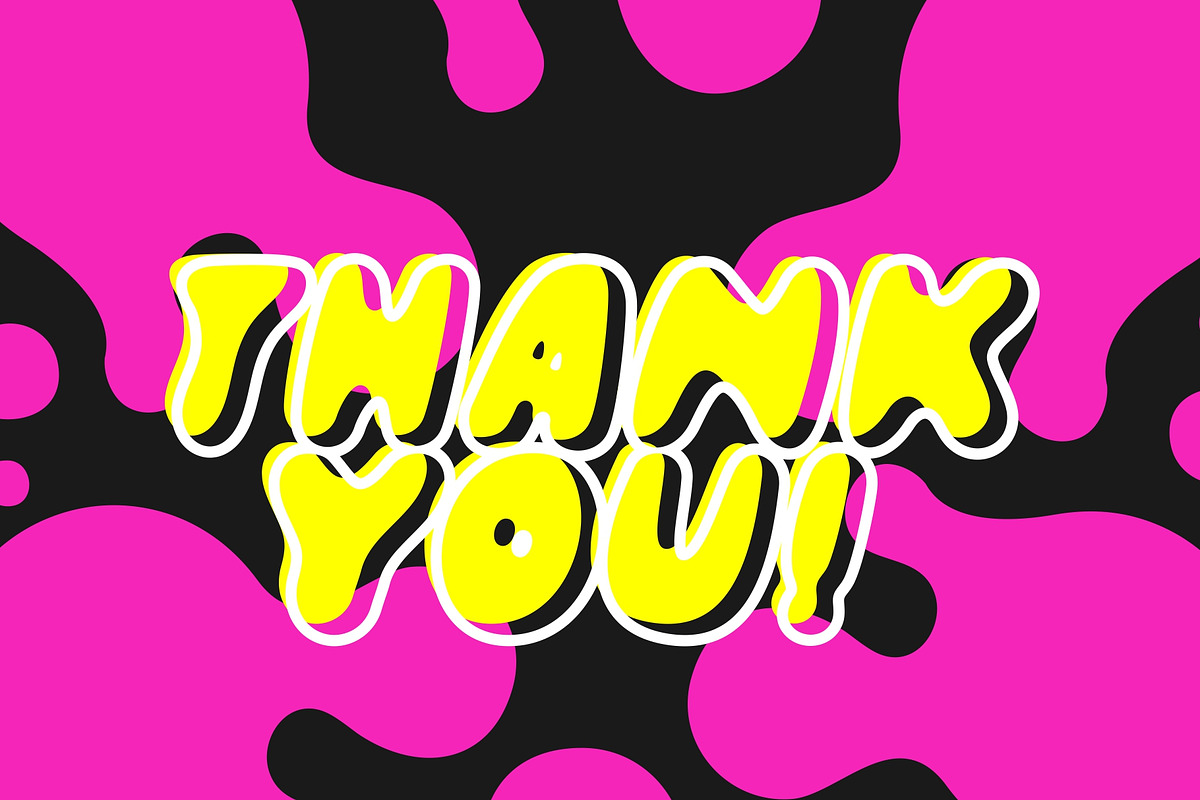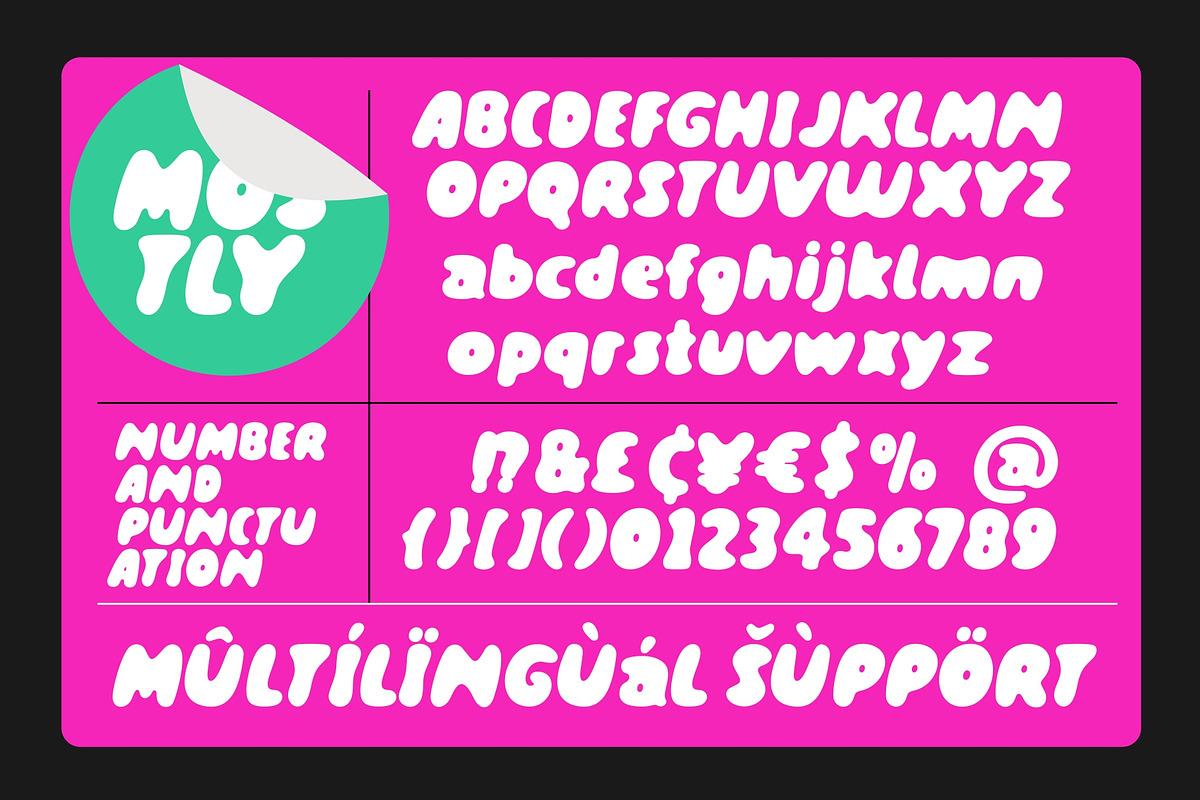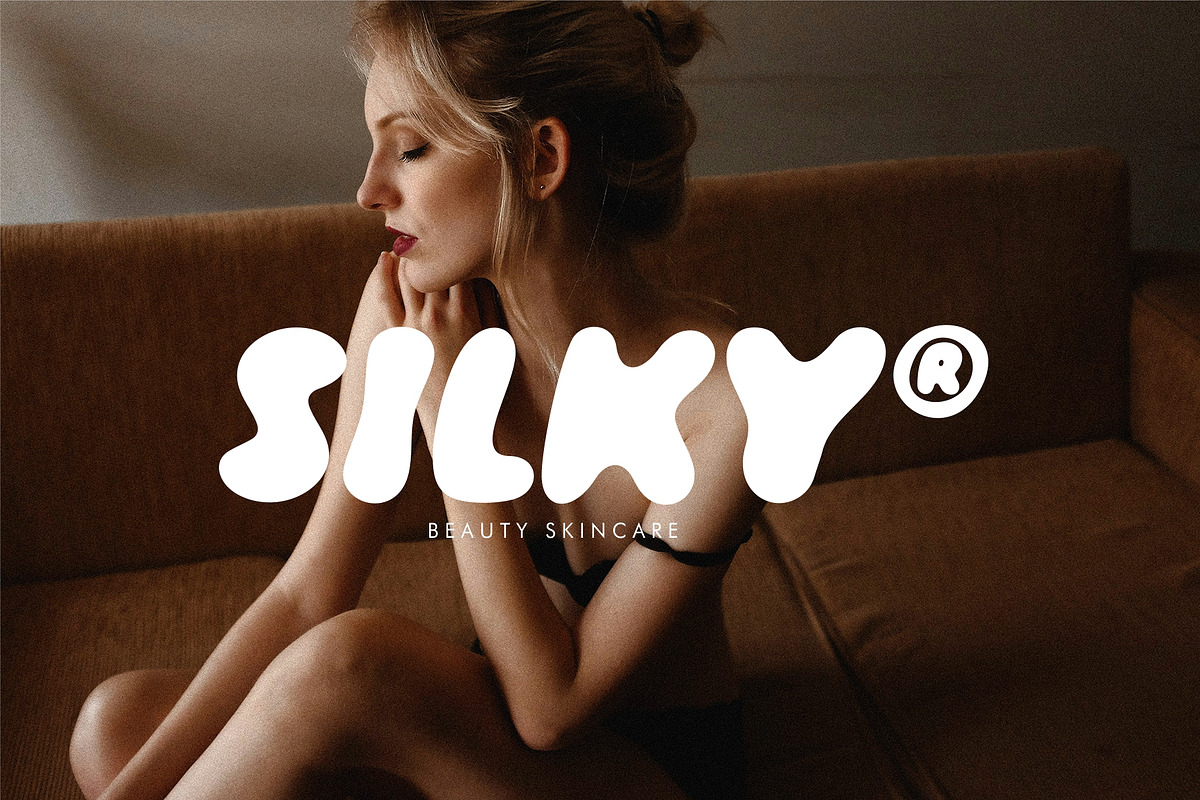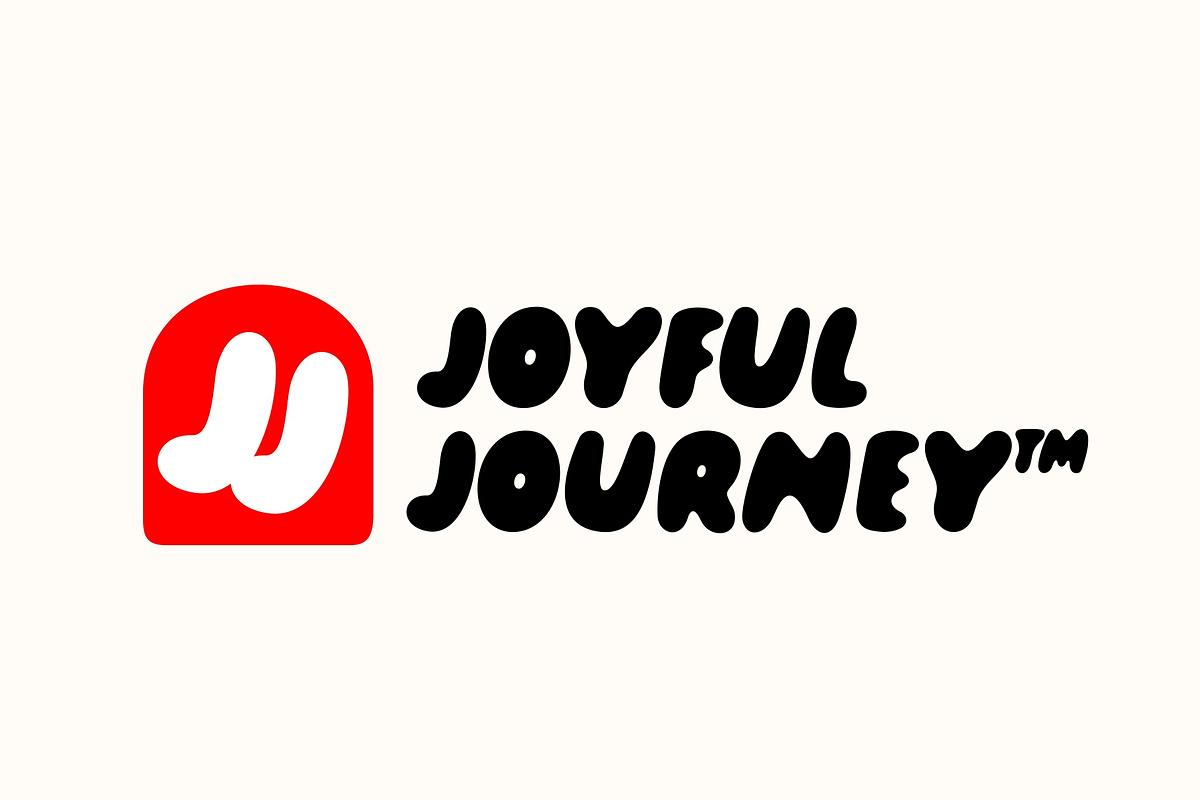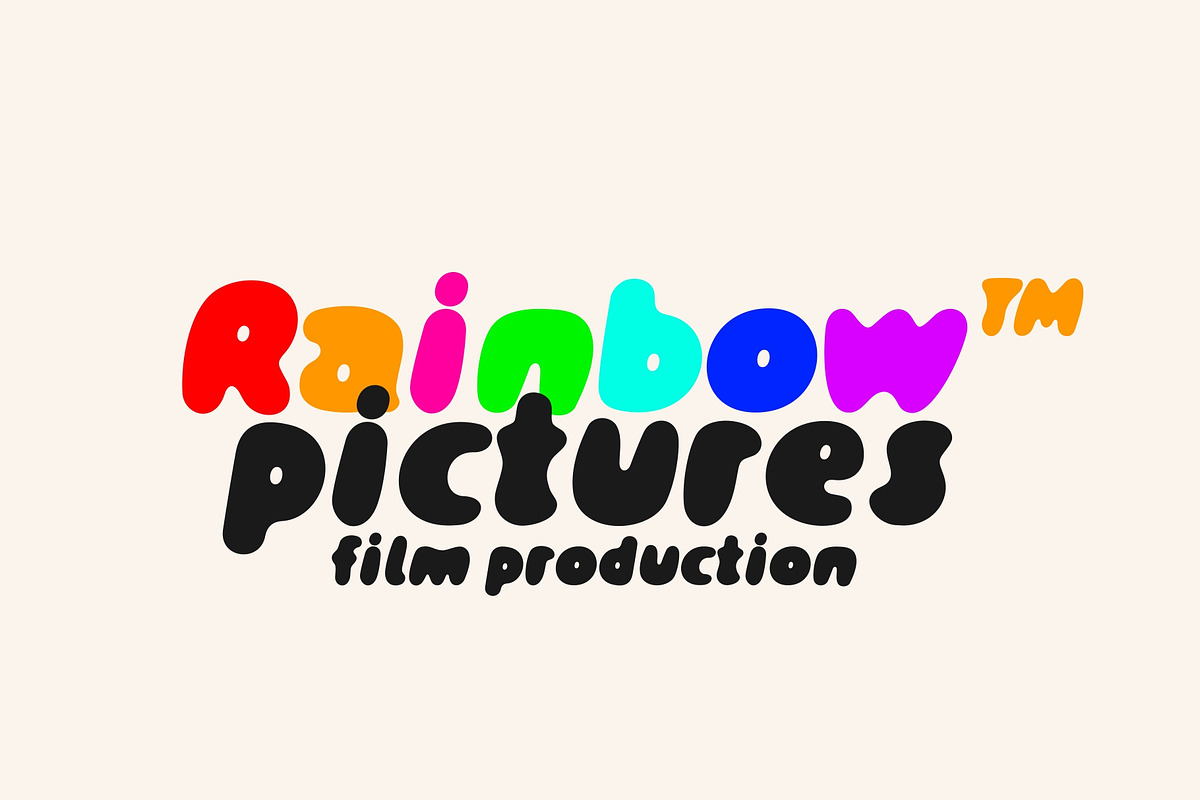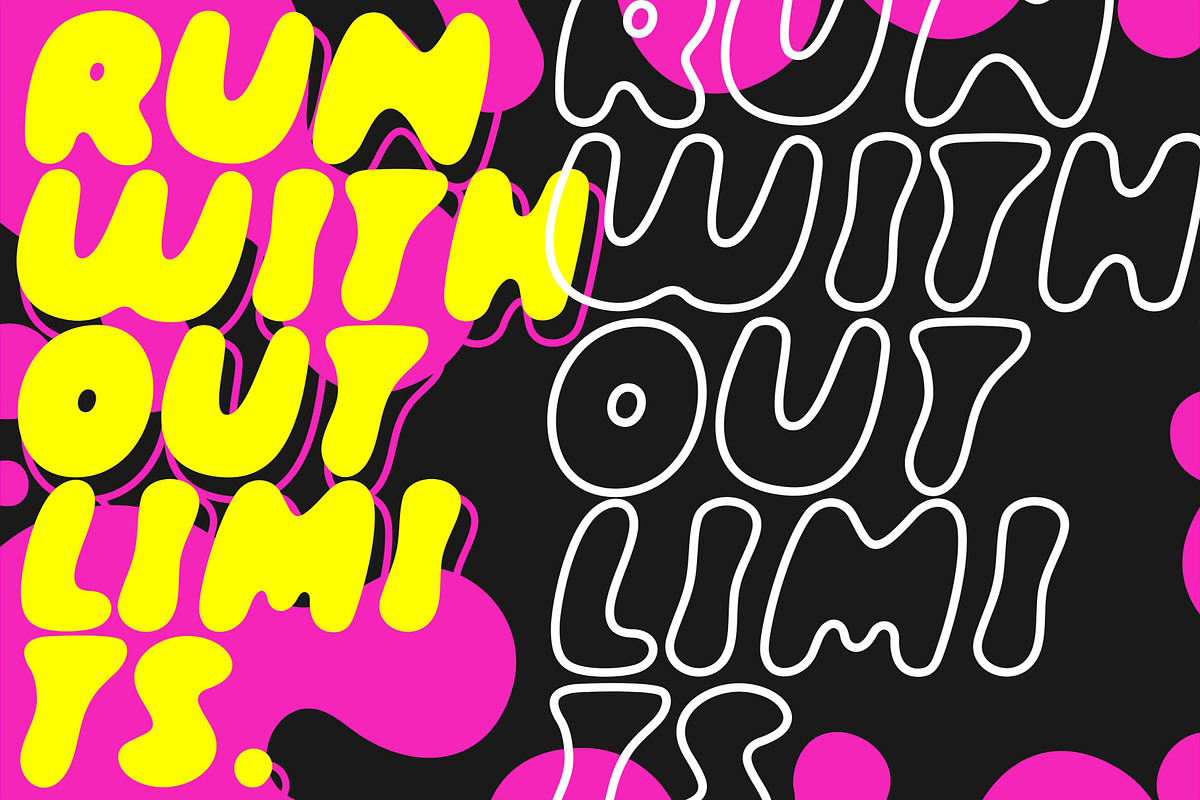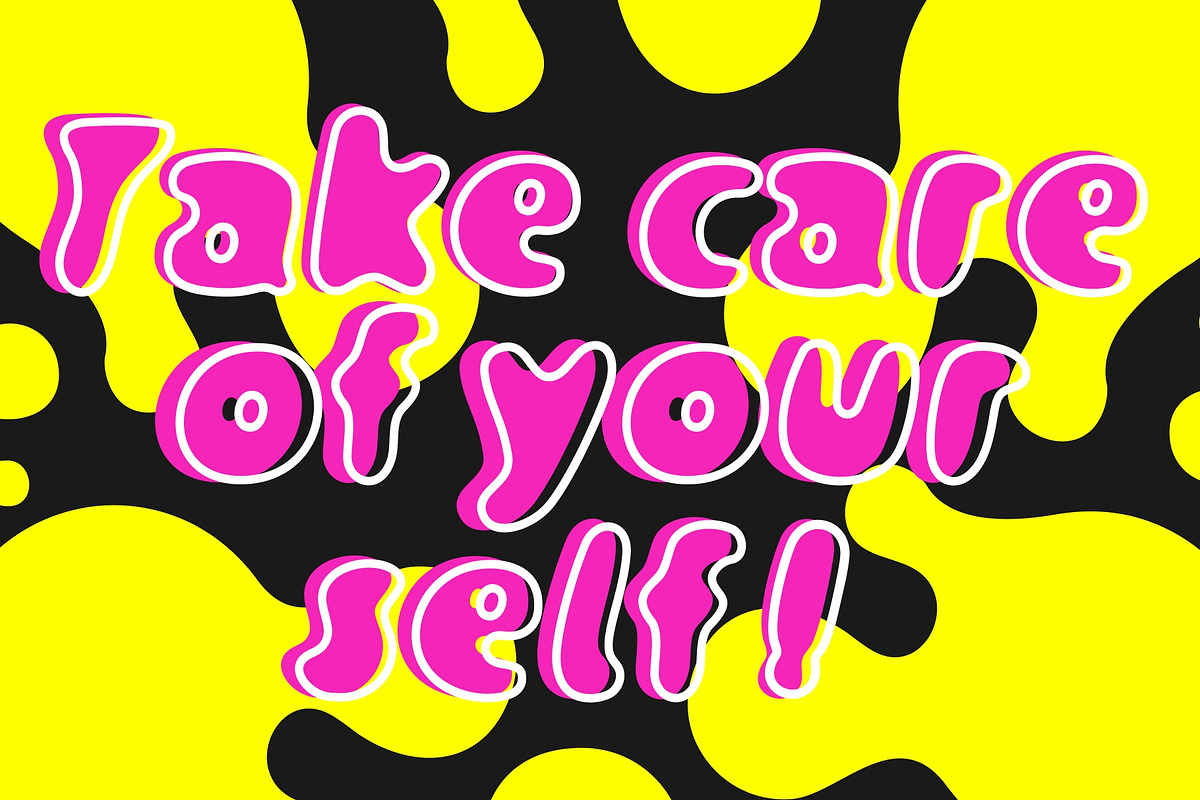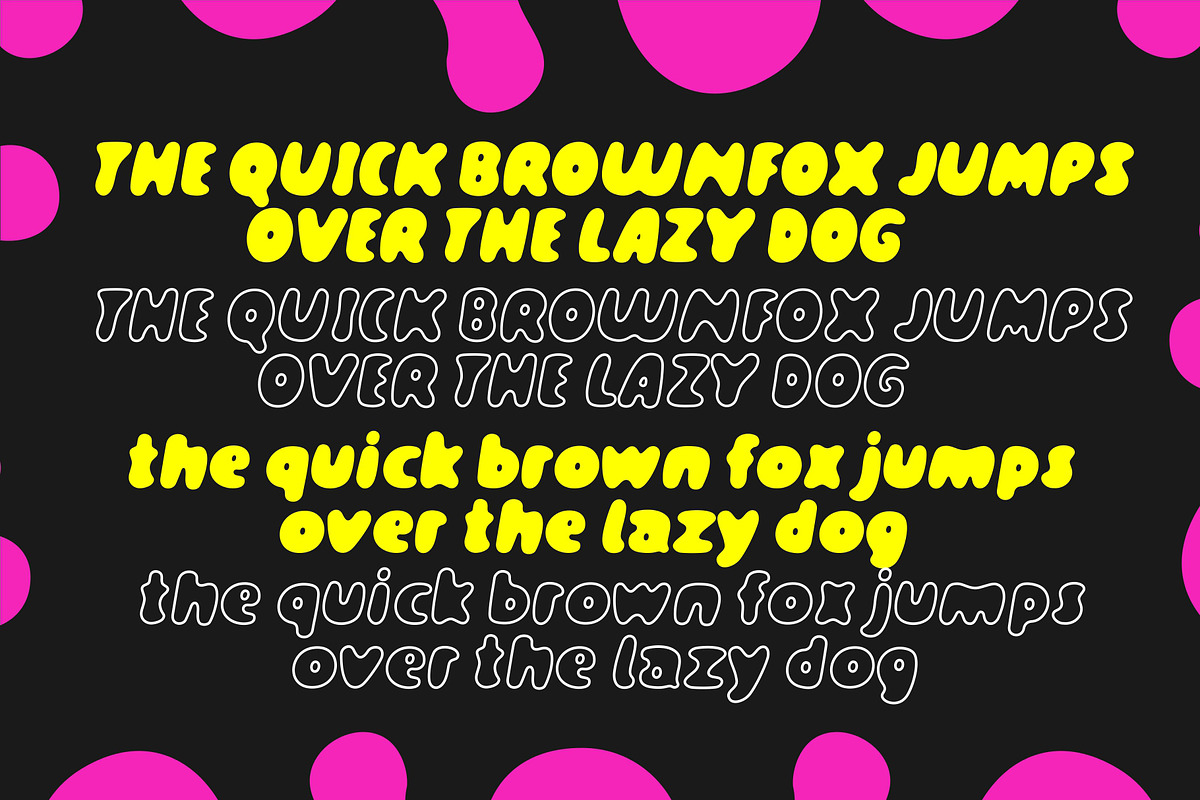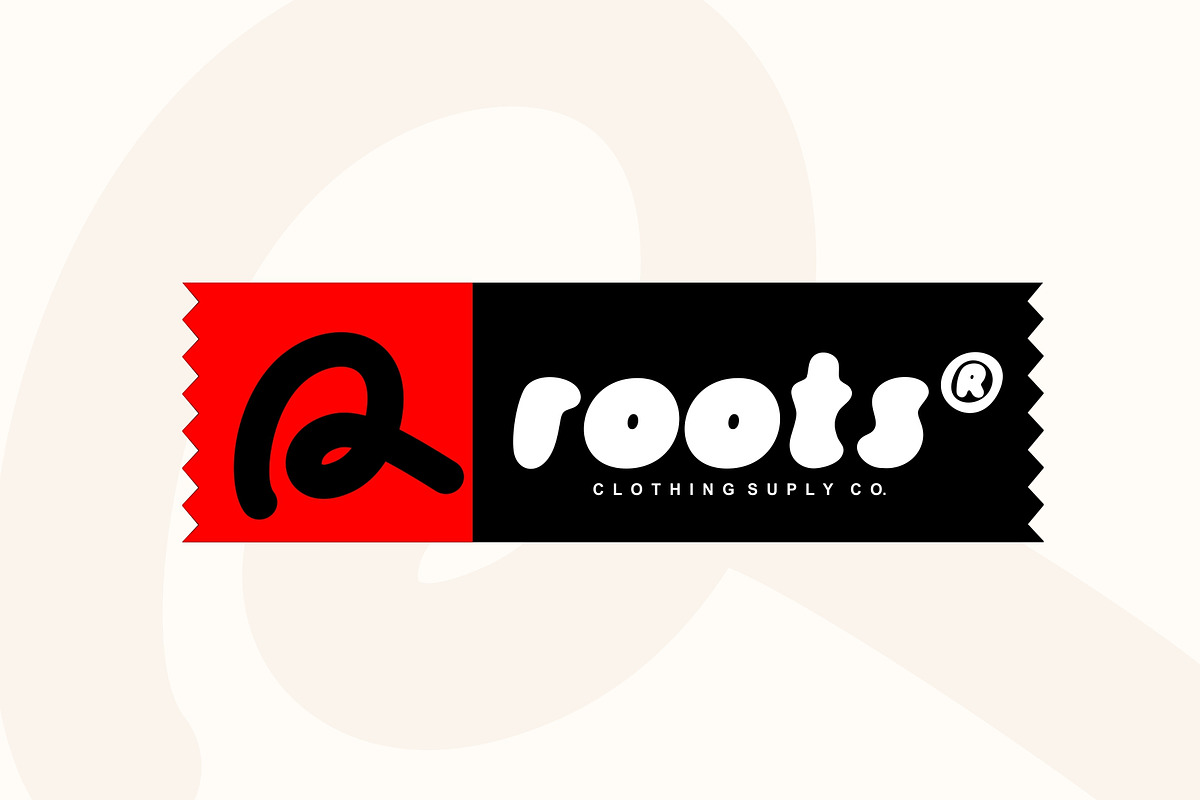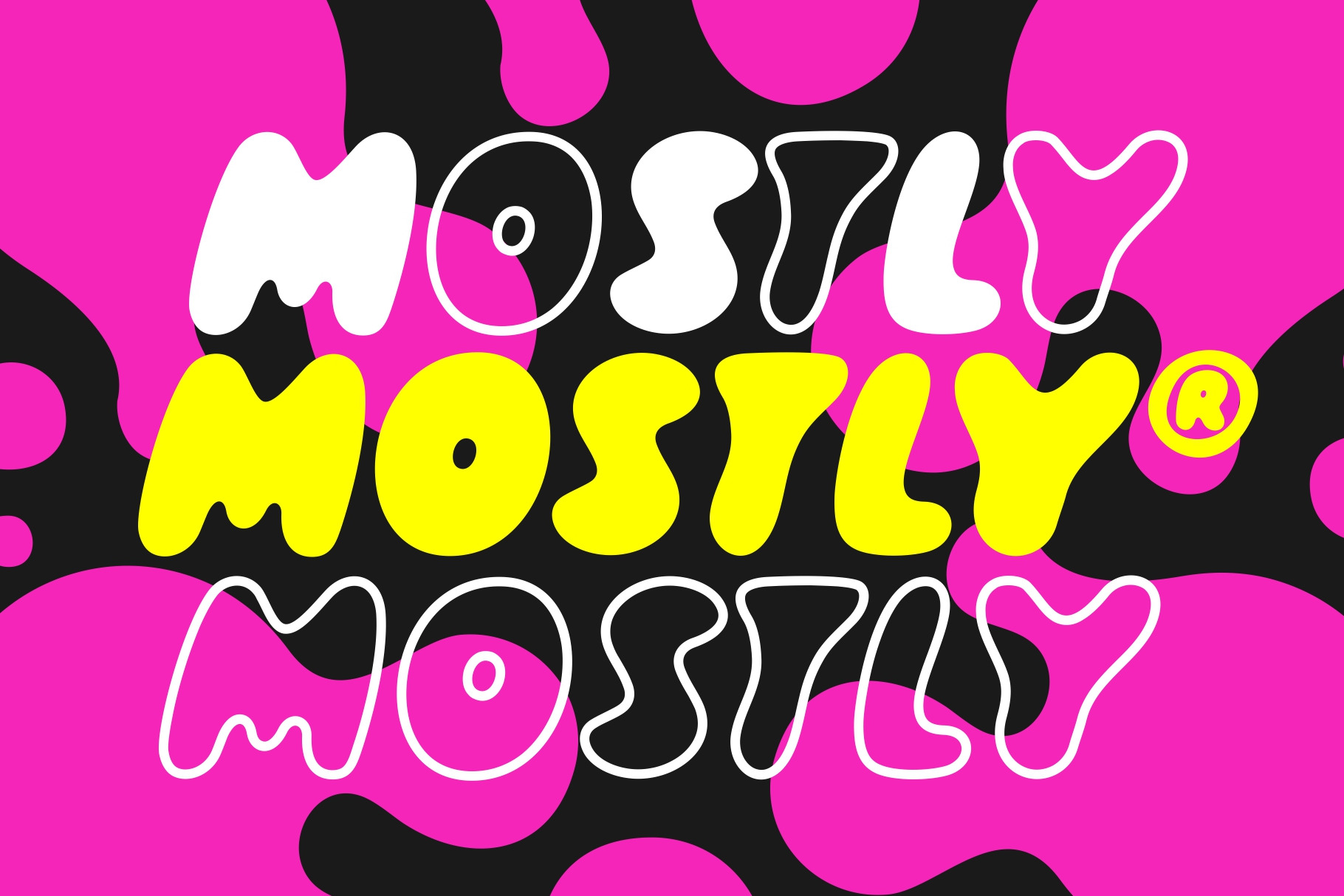
Mostly - Bubble Font
Mostly a fun bubble font with trendy doodle graphics. This font is perfect for creating retro designs, stickers, phone cases, instagram quotes, branding, logos and more!
- numeric & Multilingual support
- Stylistic Alternates with Ss01